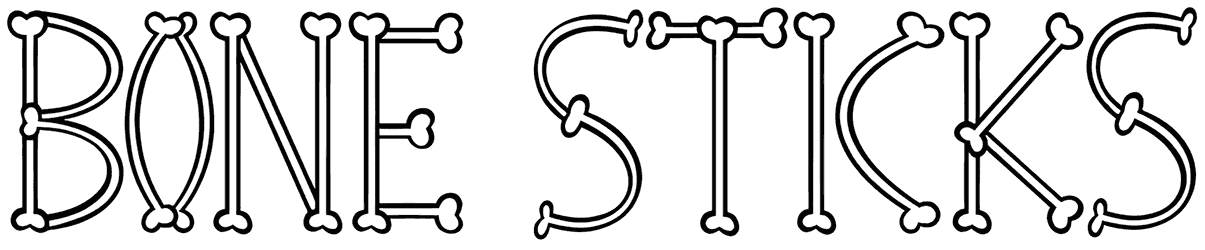
A clever choice for when you want to be creative in how you show off the playfulness of your typography, A Skeleton in Your Closet is ready for download right away. It includes letters made out of bones joining together to create the outline of alphabets, some of them turning out to look a bit alike.
This bone font, unique and noticeable as it is, fits your gaming graphics, children’s books or clothing, or other innovative projects as such.